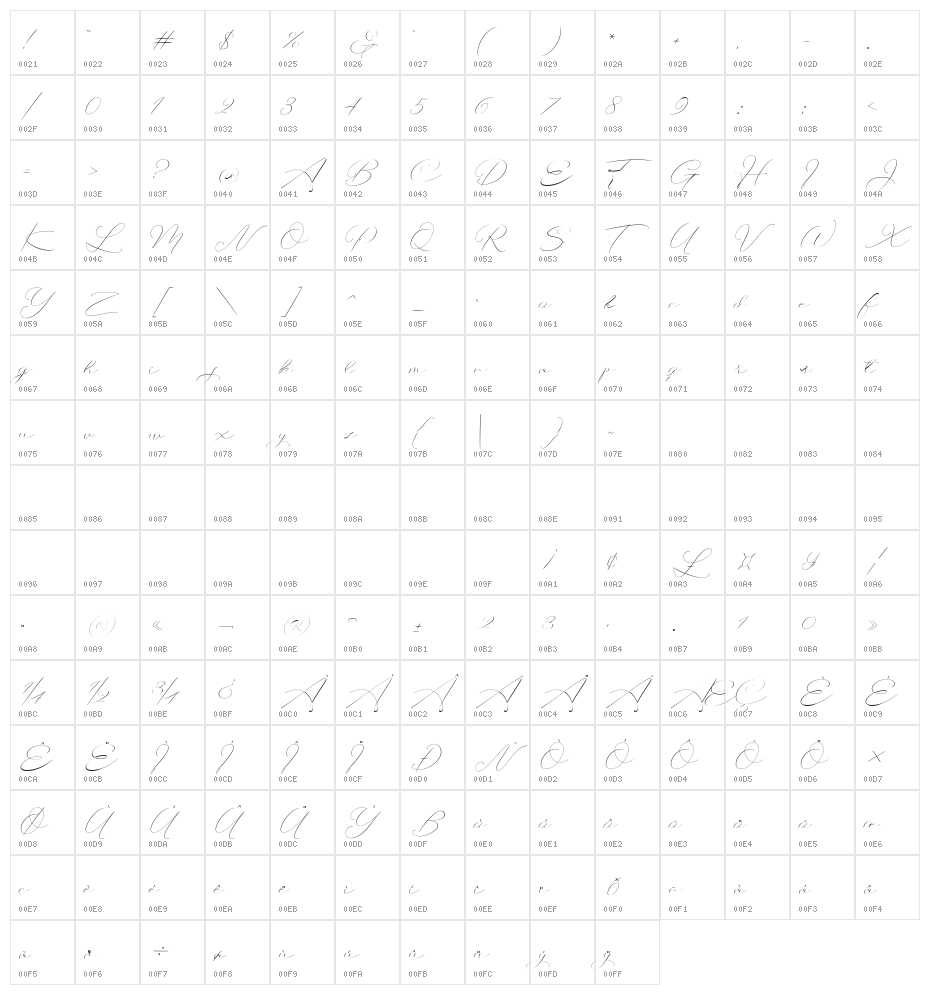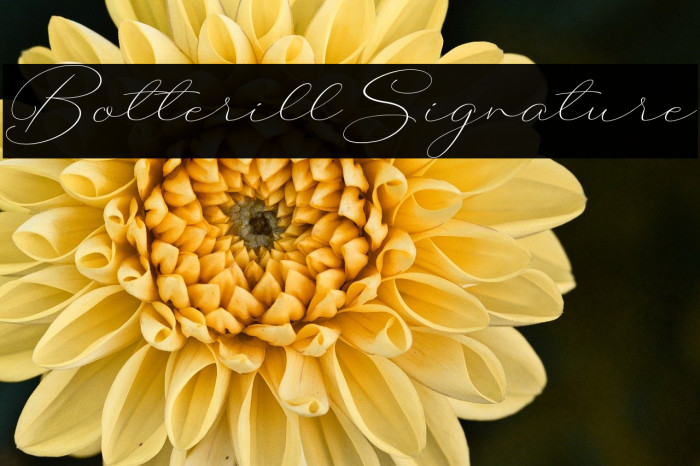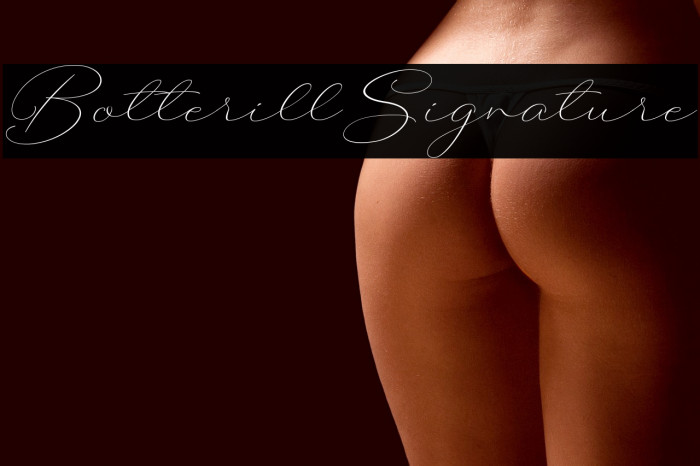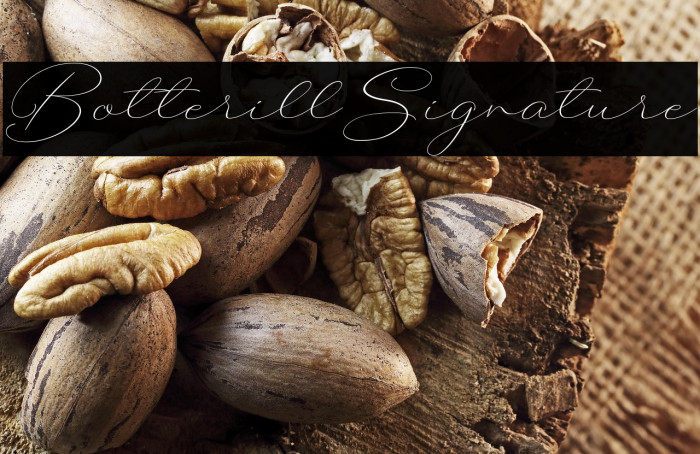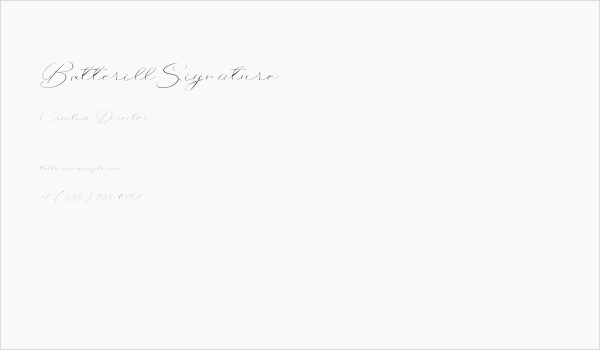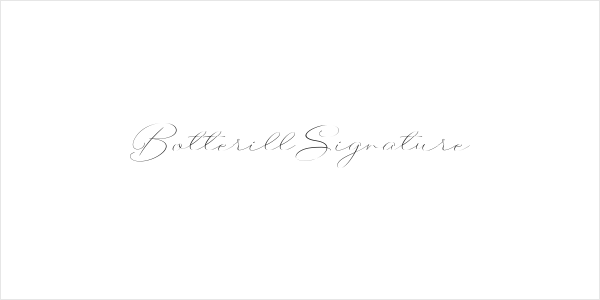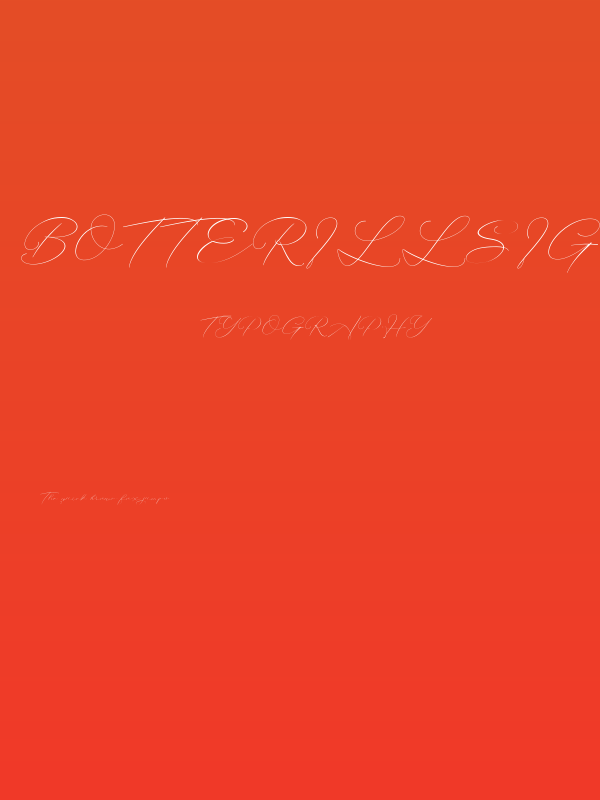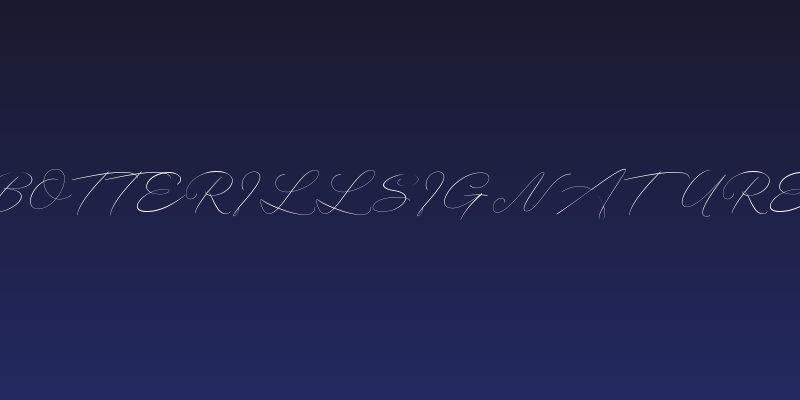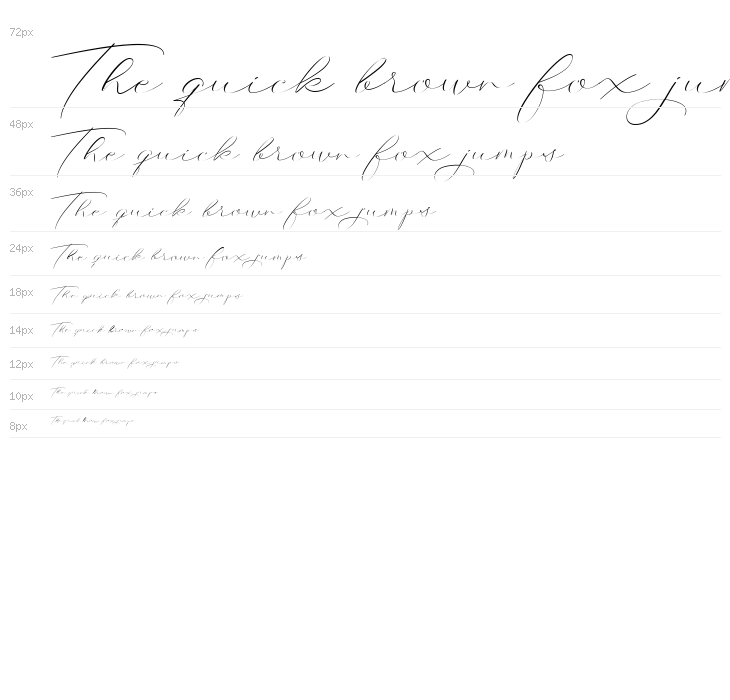
BotterillSignature Font
BotterillSignature Description
This elegant script font exudes a sense of sophistication and fluidity, characterized by its graceful, flowing lines and delicate curves. The uppercase letters are intricately designed with sweeping strokes that convey a sense of movement and elegance. The lowercase letters maintain a consistent style, with smooth transitions and a harmonious balance between each character. The numerals are crafted with the same attention to detail, offering a cohesive look throughout. Special characters are thoughtfully integrated, enhancing the font's versatility. This font is perfect for projects that require a touch of class and refinement.
| Overall Style | Elegant |
| Use Case | Logos, Invitations, Branding |
| Proposed Projects | Ideal for wedding invitations, elegant branding, personal signatures, and high-end product packaging. |